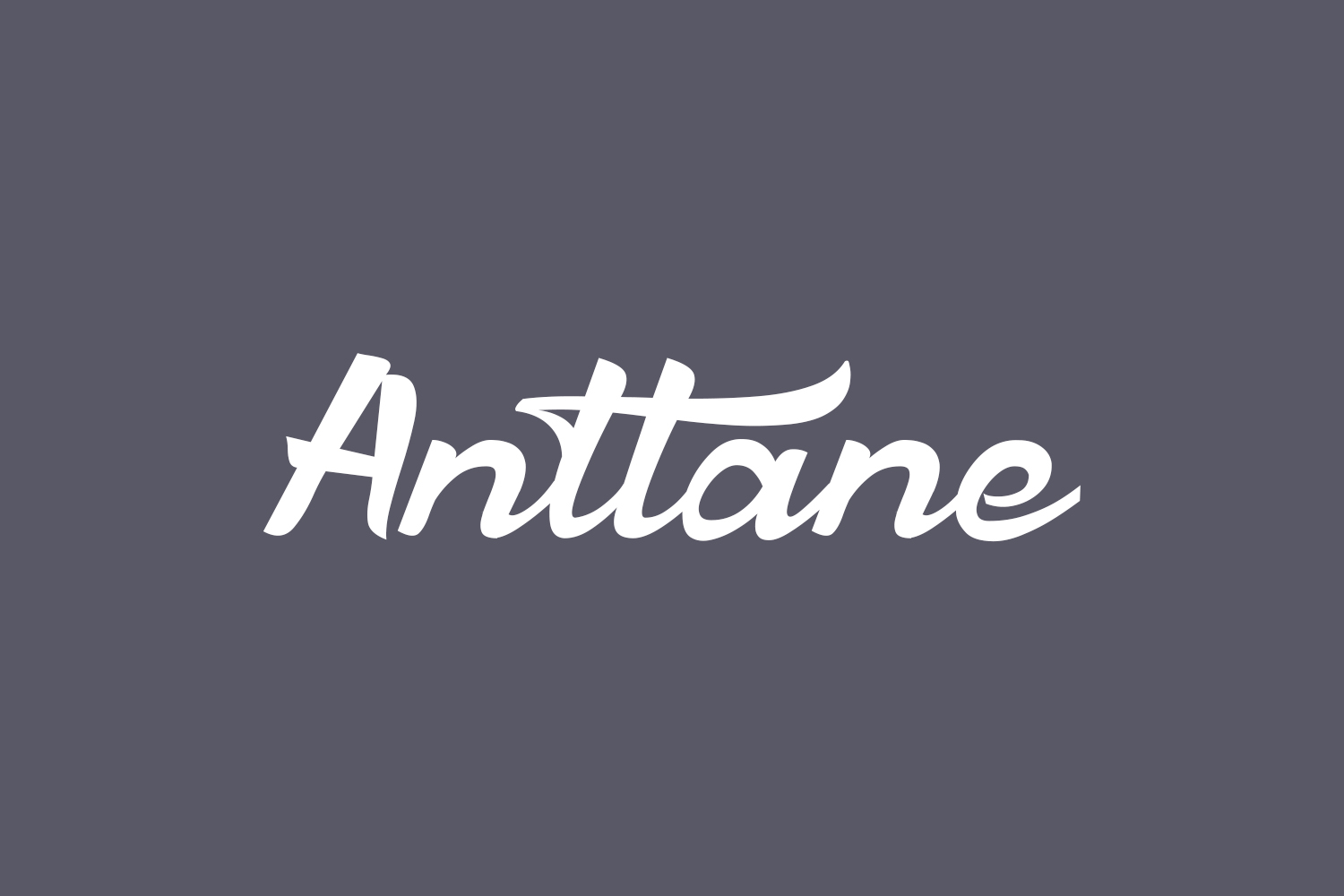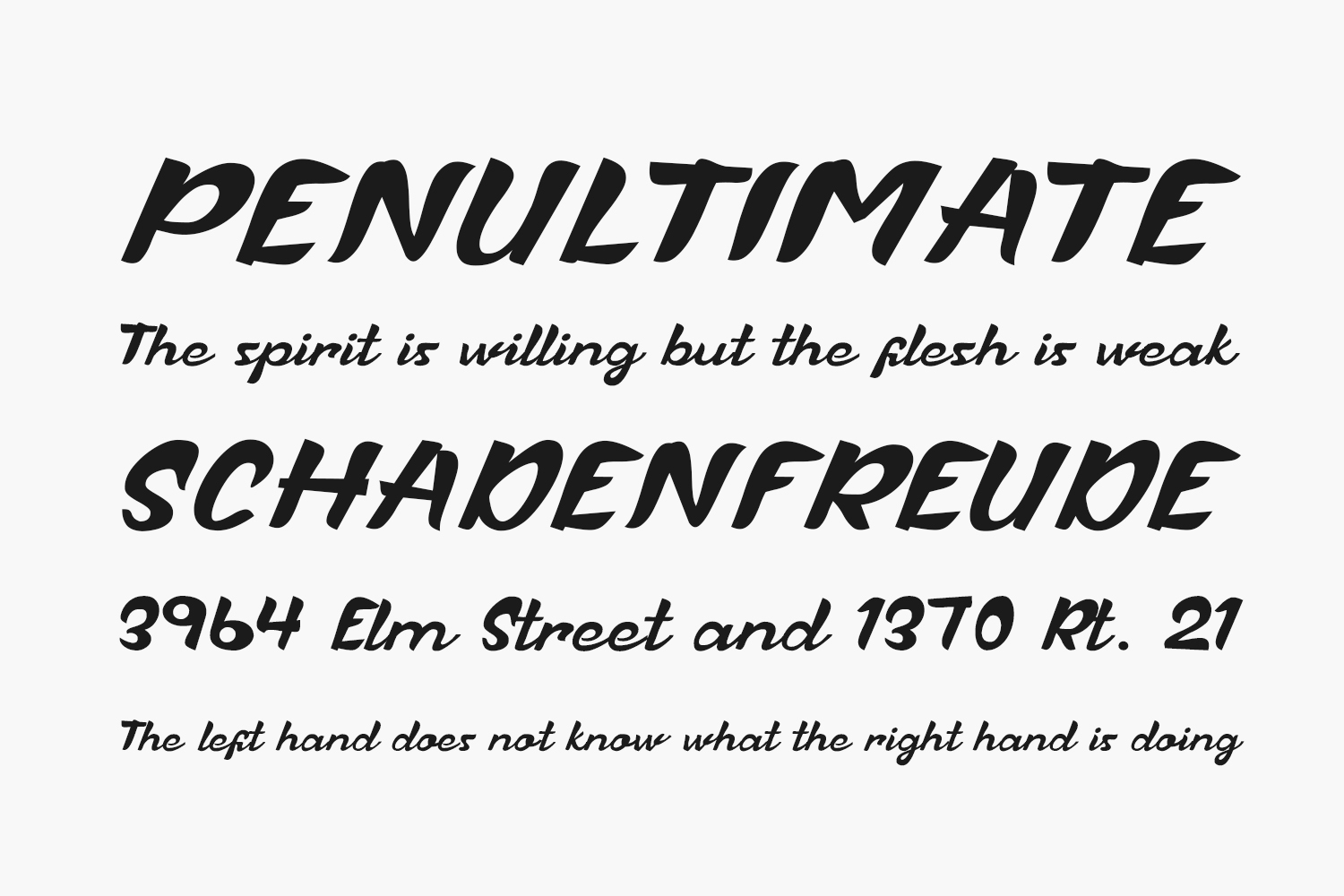
Anttane Free Font is a distinctive retro script font that exudes boldness and charm. Its clean yet slightly quirky design makes it an ideal choice for crafting logos, branding materials, captivating social media posts, and creative DIY endeavors. Download the font for free if you need it for personal use or purchase the full version for commercial use.
Designed by Sesa Grafika